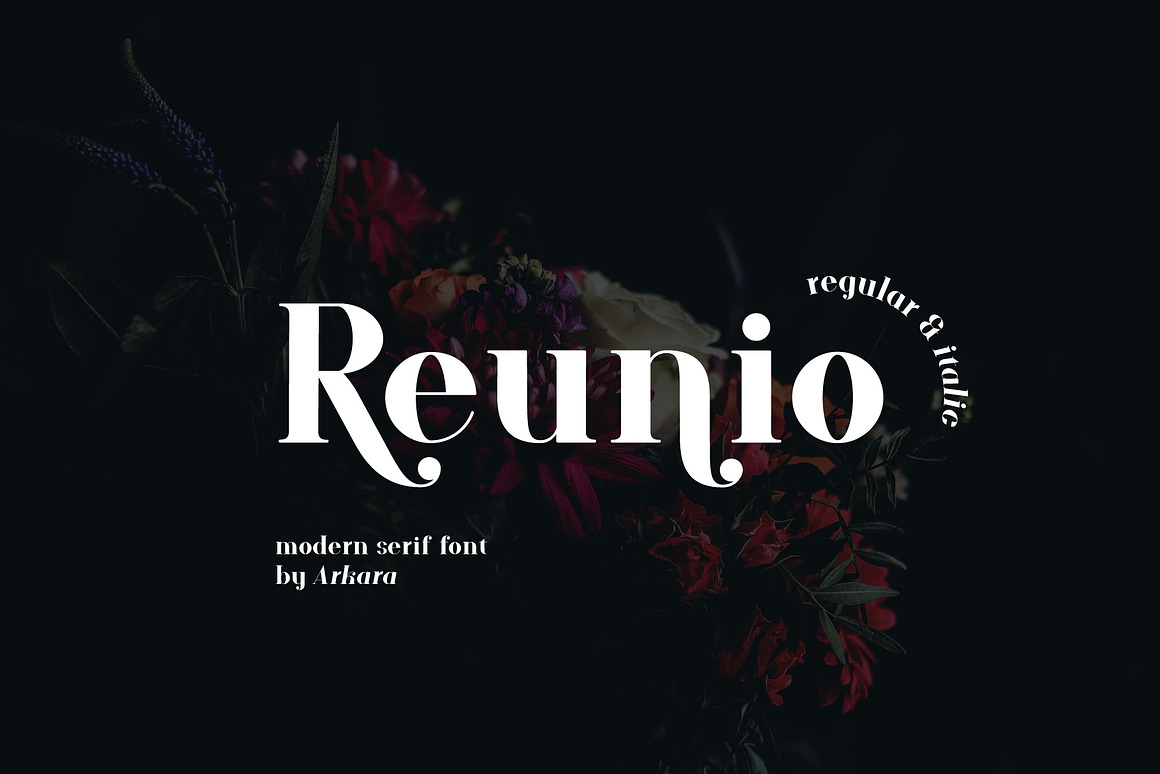
ARK Reunio - Modern Serif Font
ARK Reunio - Modern Serif Font is perfect for contemporary publishing houses, sophisticated editorial design, modern literary magazines, progressive cultural institutions, innovative academic publications, and refined intellectual discourse platforms. Its harmonious character makes it ideal for reunion event planning, family heritage organizations, contemporary book publishing, modern art galleries, sophisticated conference materials, and any project requiring intellectual connection with contemporary elegance and scholarly reunion appeal.
This font is exciting because it masterfully bridges traditional serif typography with contemporary design innovation while embodying the spirit of meaningful reconnection and intellectual gathering. The thoughtfully crafted letterforms reflect both historical reverence and forward-thinking vision, creating typography that feels both academically authoritative and refreshingly modern, making it perfect for organizations celebrating the power of bringing people and ideas together.
The ARK Reunio - Modern Serif Font family typically includes Light, Regular, Medium, and Bold weights with contemporary alternates, scholarly ligatures, and reunion-inspired elements that enhance its connective personality. This comprehensive collection enables intellectual professionals to create sophisticated brand systems that maintain academic credibility while offering flexibility for various educational applications requiring both traditional authority and contemporary accessibility.